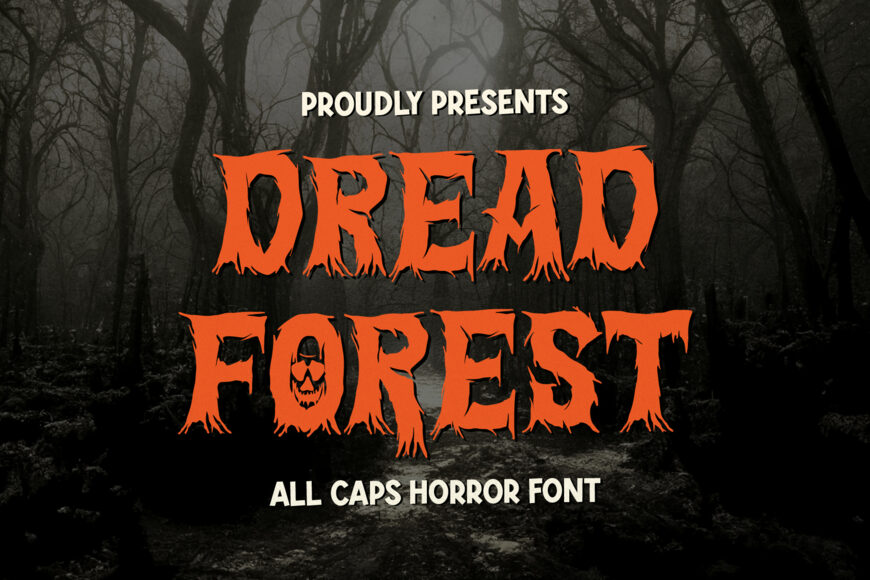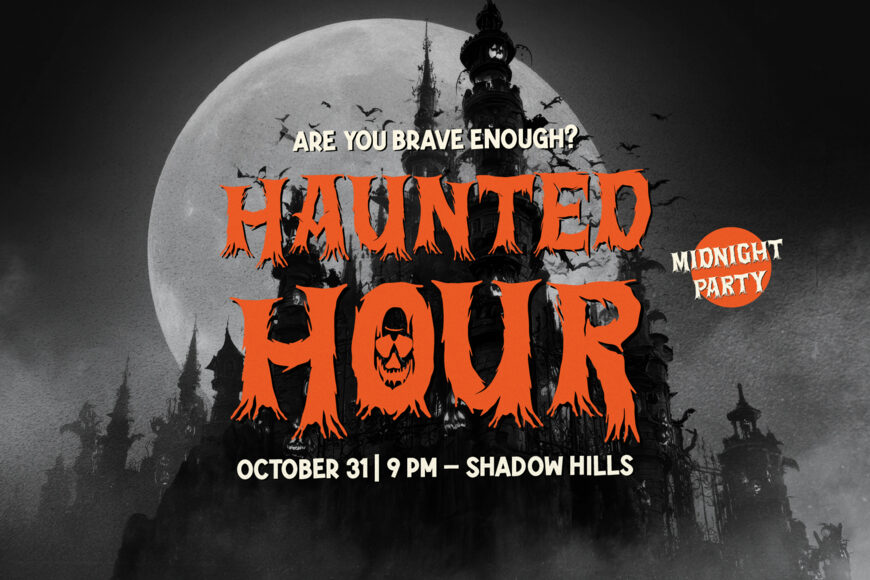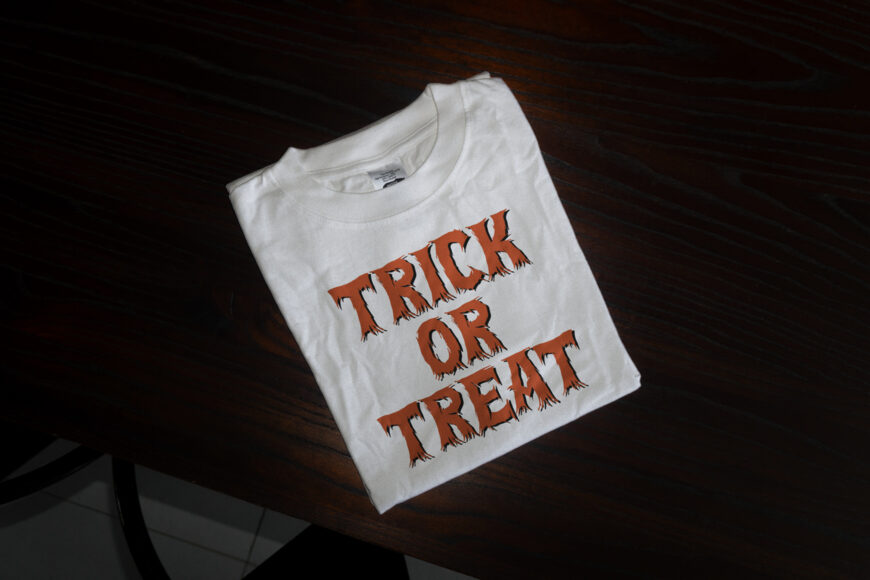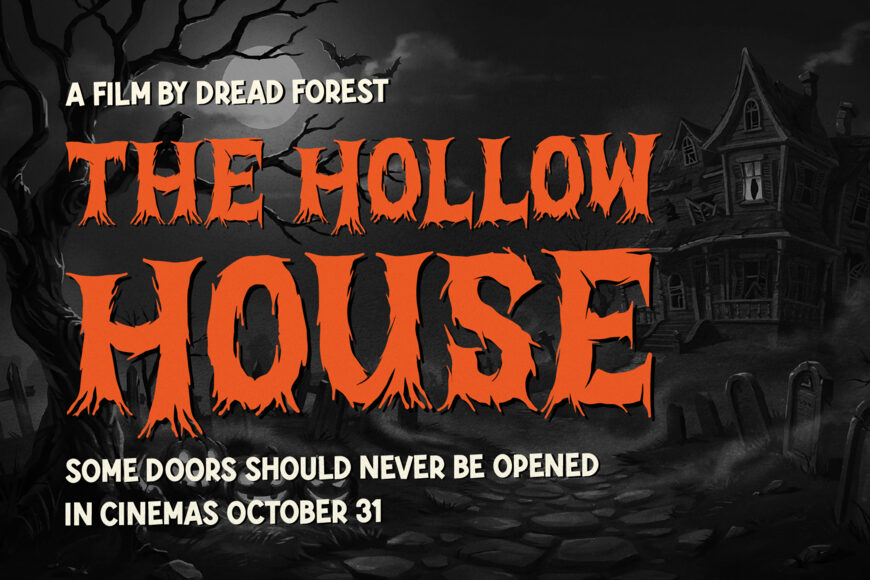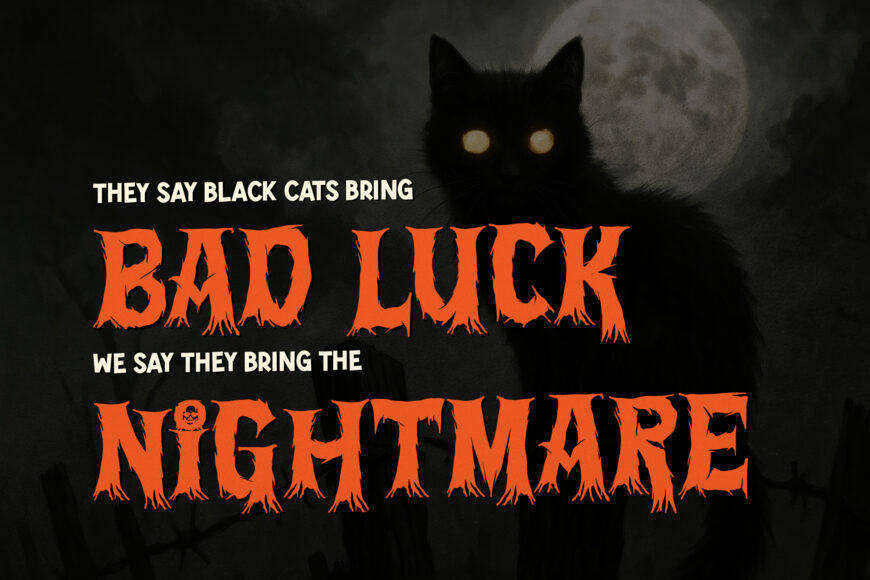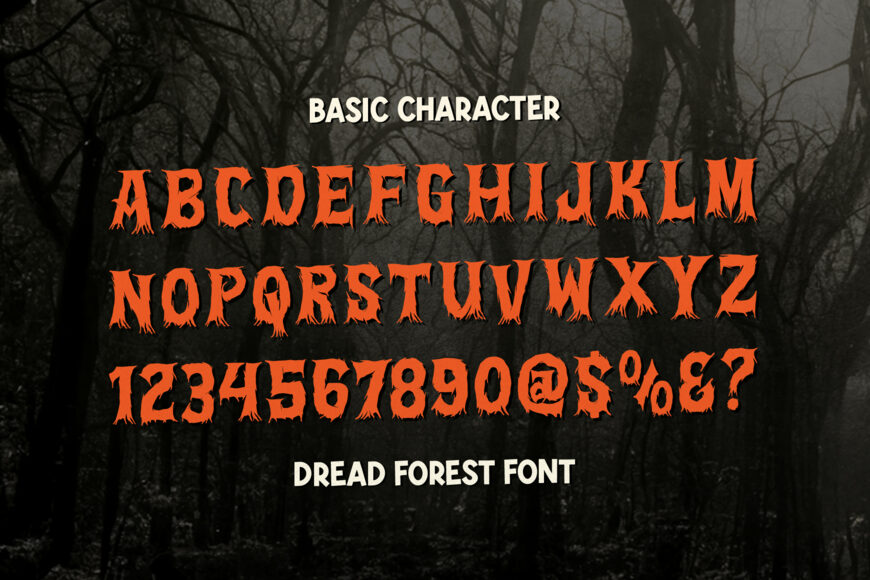
Enter a shadowy, haunted wilderness with Dread Forest, an all-caps horror display font inspired by ancient monster legends. Its tall, jagged strokes evoke twisted tree roots, while carved wood-style terminals and subtle skull cutouts add an unsettling touch to the letter counters.
Bold, sharp, and eerie, it gives every title an instant spine-chilling presence. Perfect for Halloween banners, horror posters, dark fantasy covers, haunted-house signs, apparel designs, stickers, and personalized Cricut or Silhouette SVG projects.